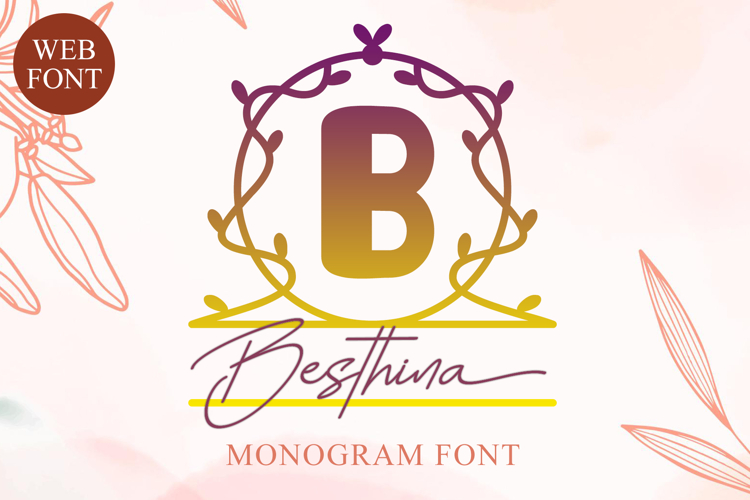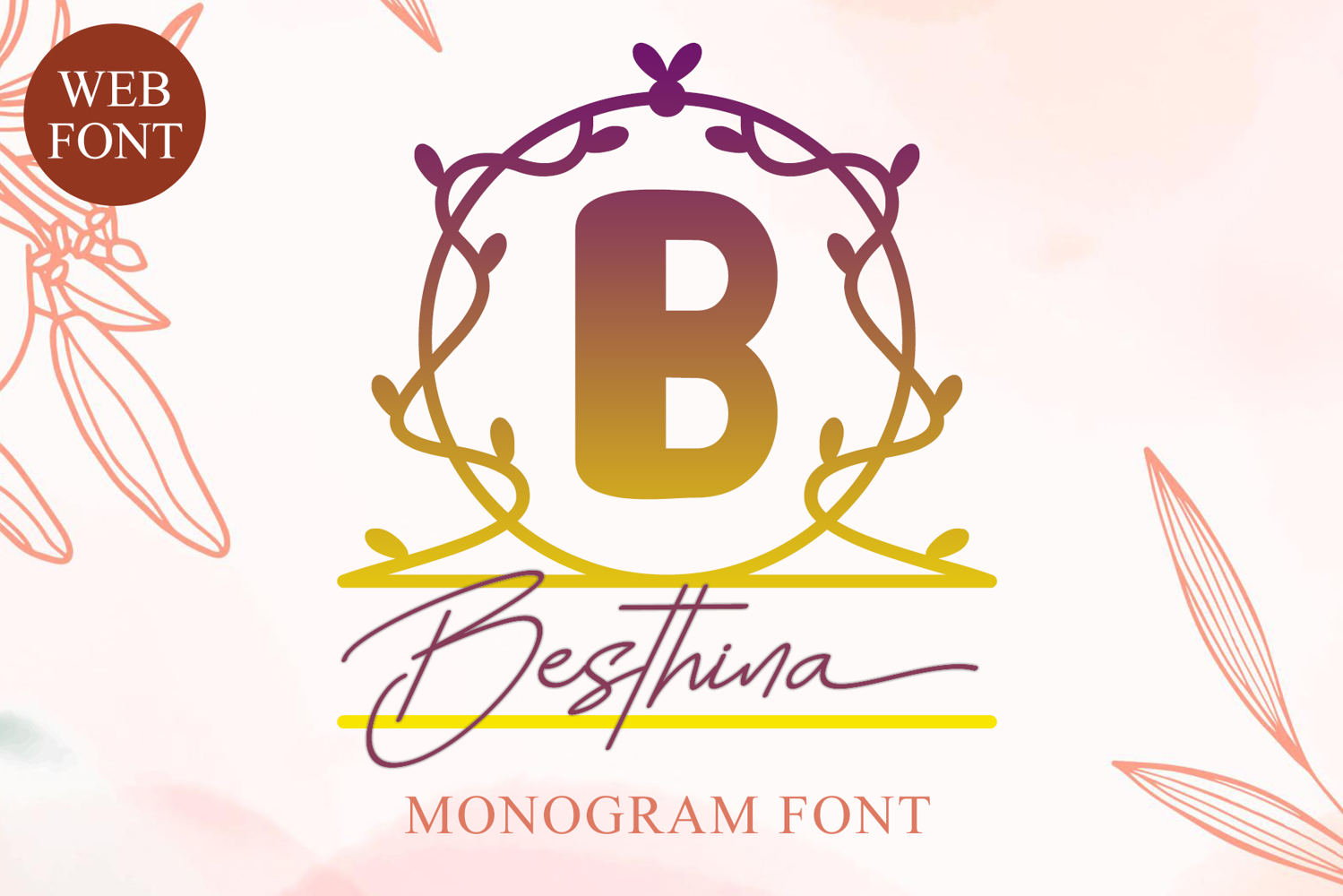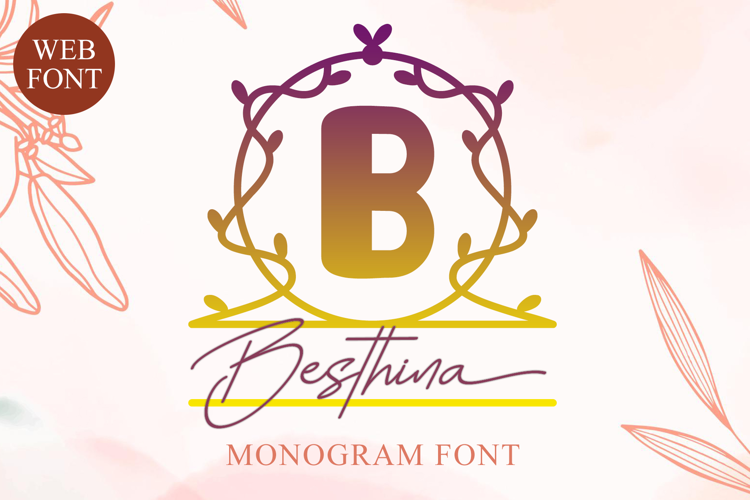
Beautiful Handwritten
Besthina Monogram Font is a stylish and versatile typeface, perfect for adding a personalized and elegant touch to your creative projects. Ideal for branding, invitations, apparel, home décor, and digital designs, this font offers timeless charm and flexibility.